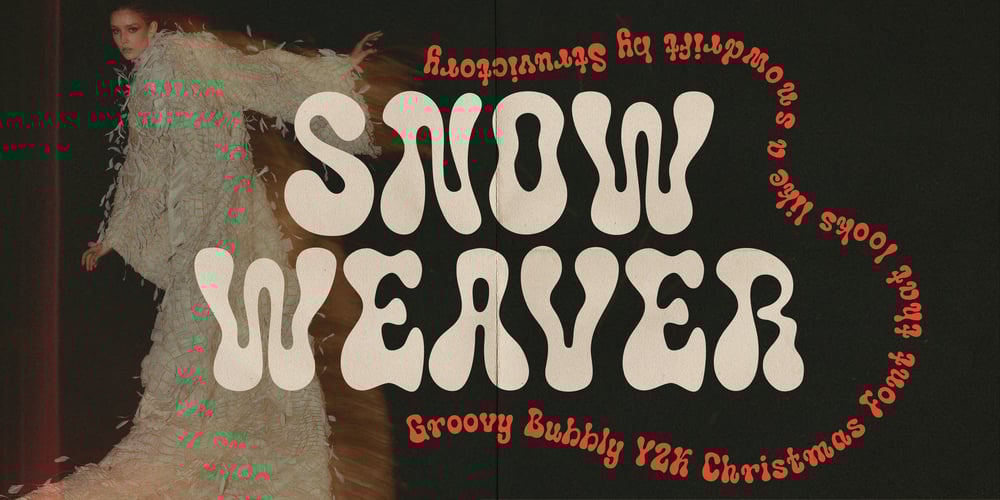
Snow Weaver Bubbly Font Family was designed by Viktoryia Strukouskaya and published by Struvictory.art. Snow Weaver Bubbly contains 1 styles and family package options. Snow Weaver is the bubbly, bold, and cozy font you’ve been searching for! With its playful curves and whimsical design, this font exudes a sense of warmth and holiday cheer in the Y2K aesthetic. The outlines of the font resemble snowdrifts, adding an extra touch of winter magic. Perfect for adding a touch of festive magic to your Christmas designs, Snow Weaver is ideal for creating cozy winter graphics, cheerful greeting cards, and joyful holiday posters. Embrace the spirit of the season with Snow Weaver font and infuse your projects with a sense of whimsy and comfort.